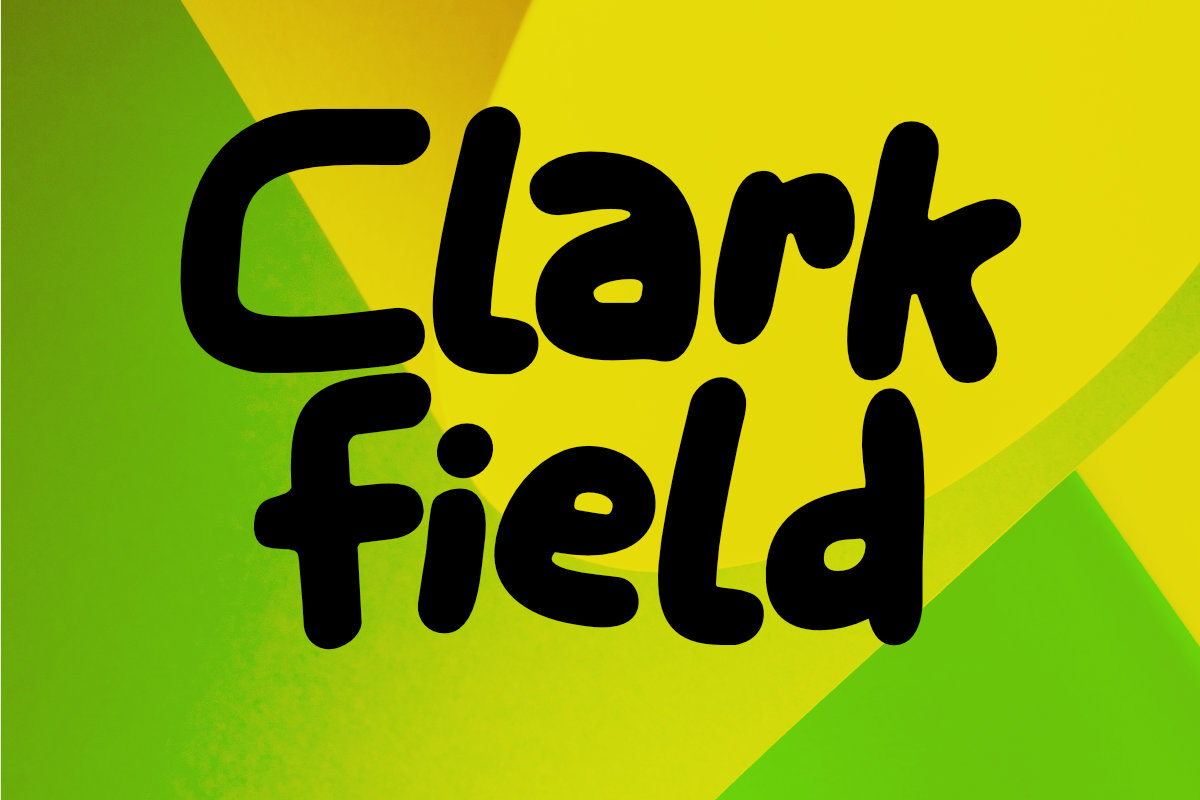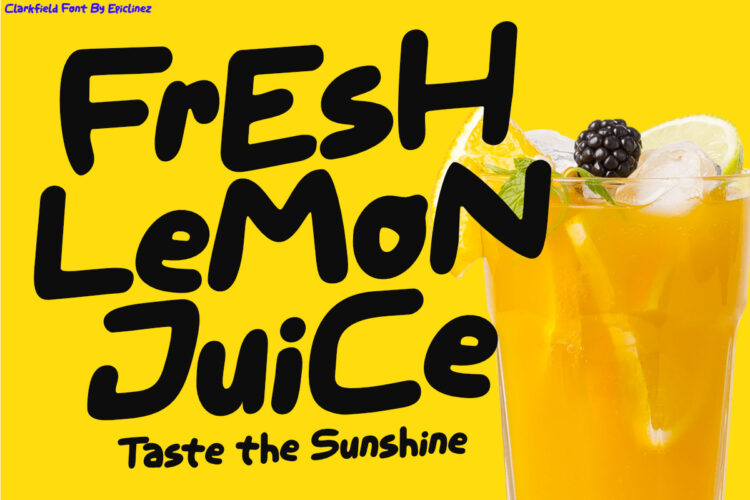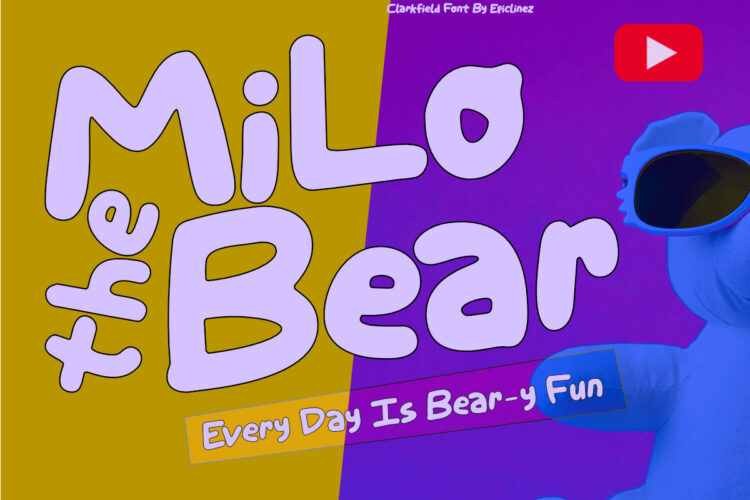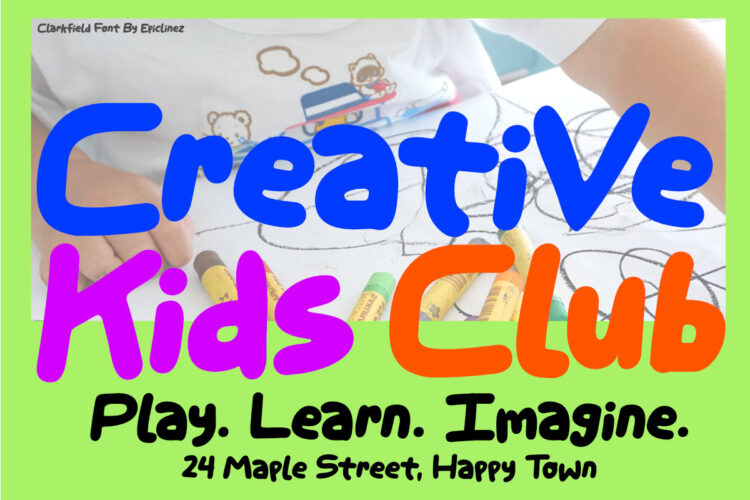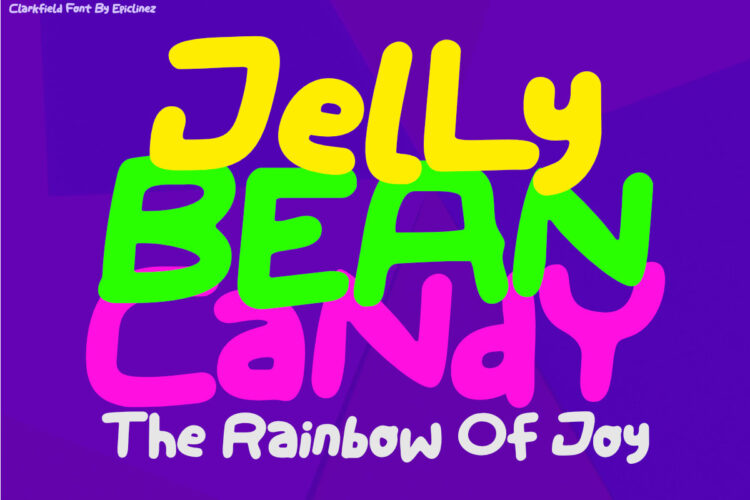
Clarkfield is a charming and playful cartoon display font designed to bring fun, warmth, and creativity to every project. Featuring bold, rounded letterforms with a handcrafted feel, this kid-friendly typeface offers excellent readability while adding a cheerful personality to your designs.
Perfect for logos, branding, children’s books, toy packaging, candy labels, birthday invitations, greeting cards, school projects, educational materials, stickers, posters, apparel, social media graphics, YouTube thumbnails, games, and family-focused businesses, Clarkfield delivers a bright and approachable look that appeals to all ages.
Its bold shapes and smooth curves make it ideal for eye-catching headlines, product packaging, merchandise, website banners, and playful marketing materials. Whether you’re designing for kids’ brands, bakeries, cafés, daycare centers, or creative businesses, Clarkfield helps your designs stand out with a joyful and memorable style.